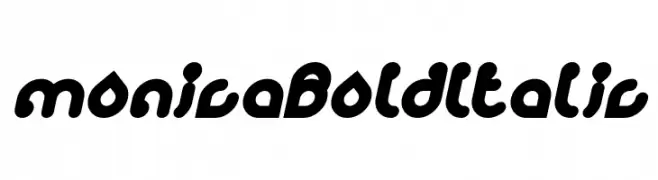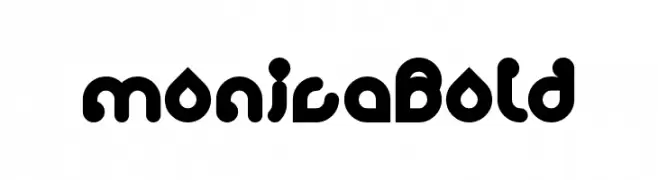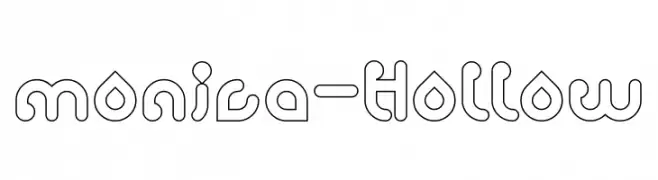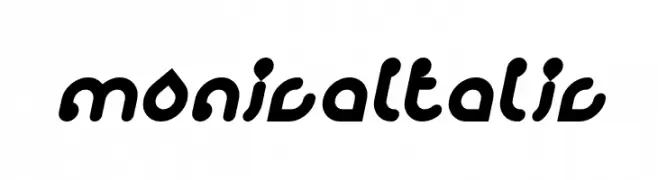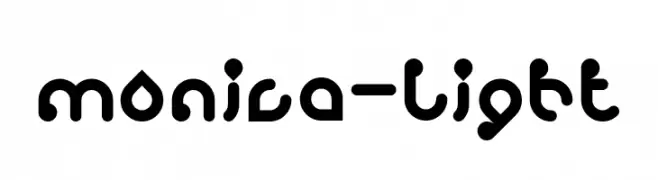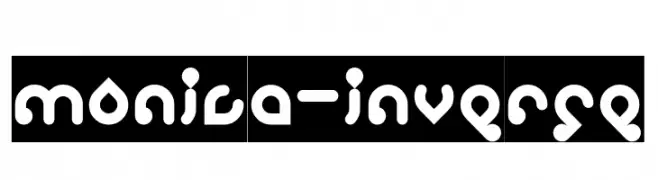
( Fonts by Manuel Viergutz - Typo Graphic Design - www.typographicdesign.de )
A geometric, blocky font with uniform line thickness and a digital aesthetic.
( Fonts by Graham Meade - GemFonts )
A modern, rounded sans-serif font with a clean and approachable style.
( Fonts by Digital Graphics Labs - www.digitalgraphiclabs.com )
A classic serif font with sharp serifs and balanced proportions.
( Fonts by SnailFonts )
A whimsical and artistic font with fluid, decorative letterforms.
( Fonts by or from www.graffitifonts.net )
A casual, handwritten font with smooth, fluid strokes and a lively appearance.
A decorative font with rainbow-like arches formed by parallel lines.
( Fonts by Graham Meade - GemFonts )
A decorative and intricate font with bold, embellished characters.
( Fonts by François Bruel )
A modern, geometric sans-serif font with clean lines and balanced proportions.
( Fonts by Graham Meade - GemFonts )
A geometric, ultra-expanded sans-serif font with a modern and minimalistic design.
( Fonts by ShyFonts )
A modern, condensed font with geometric shapes and consistent stroke thickness.
( Fonts by or from www.graffitifonts.net )
A bold, playful handwritten font with smooth, rounded strokes.
( Fonts by Rich Gast - www.greywolfwebworks.com OFF SITE )
A bold, rounded font with a playful and modern design.